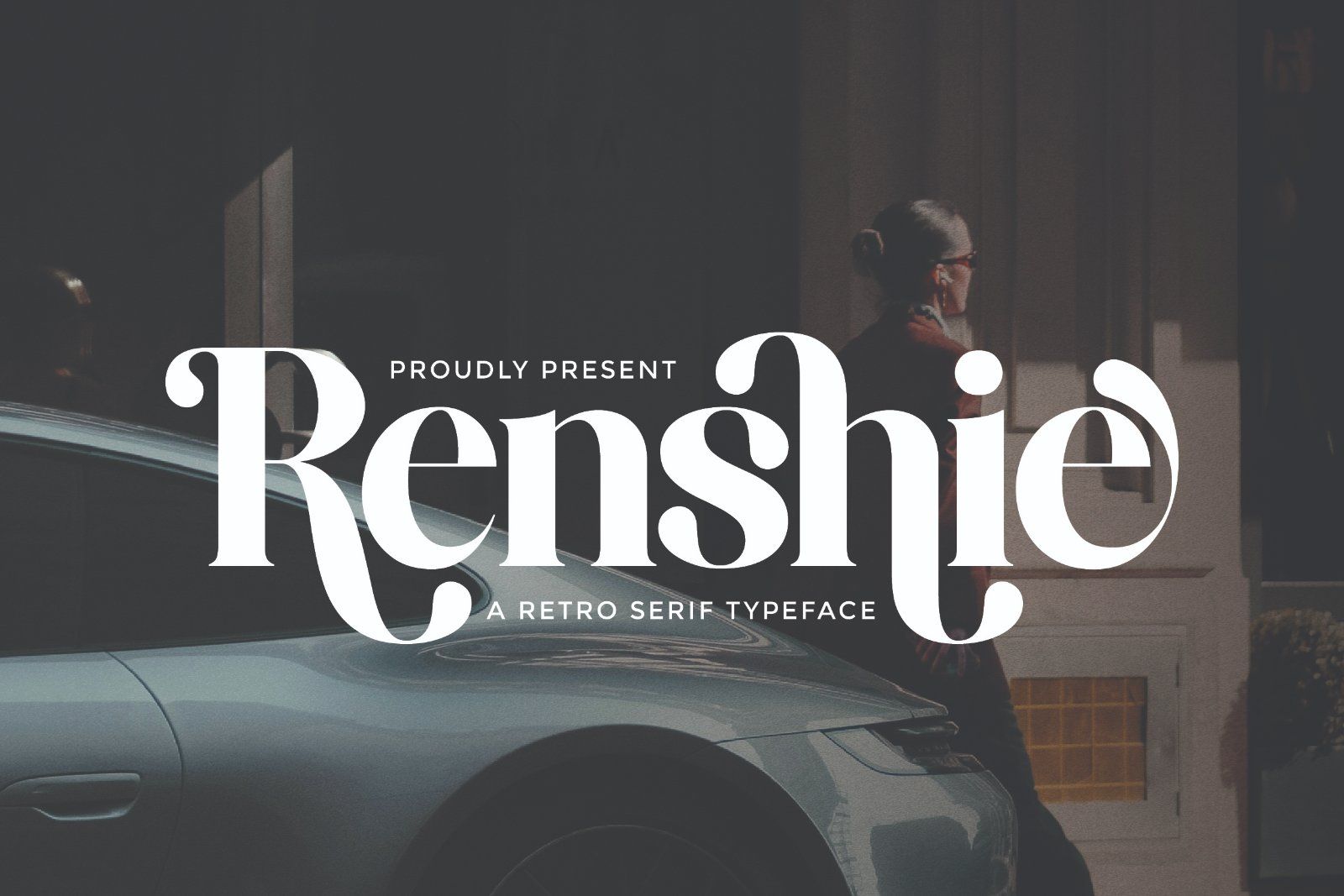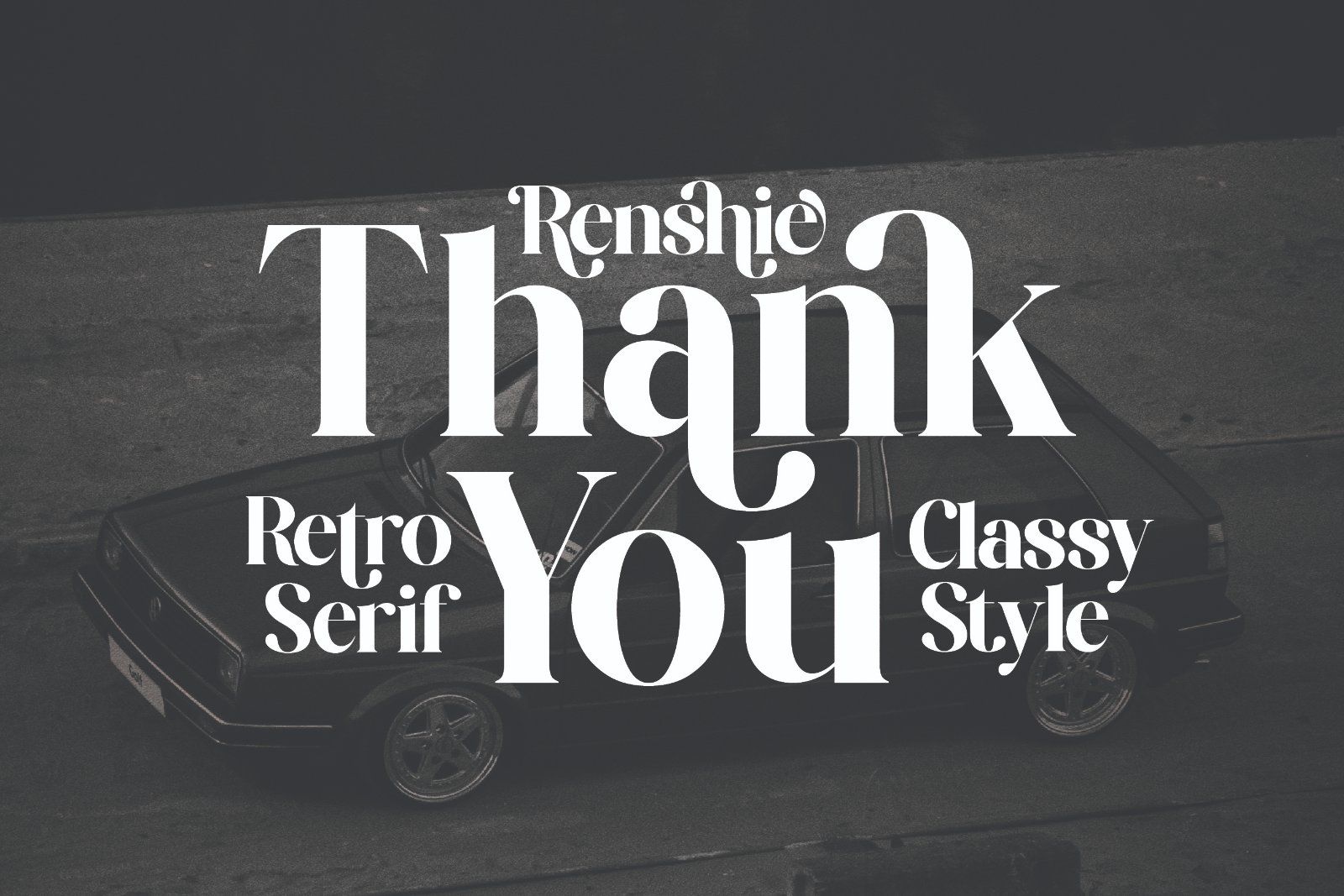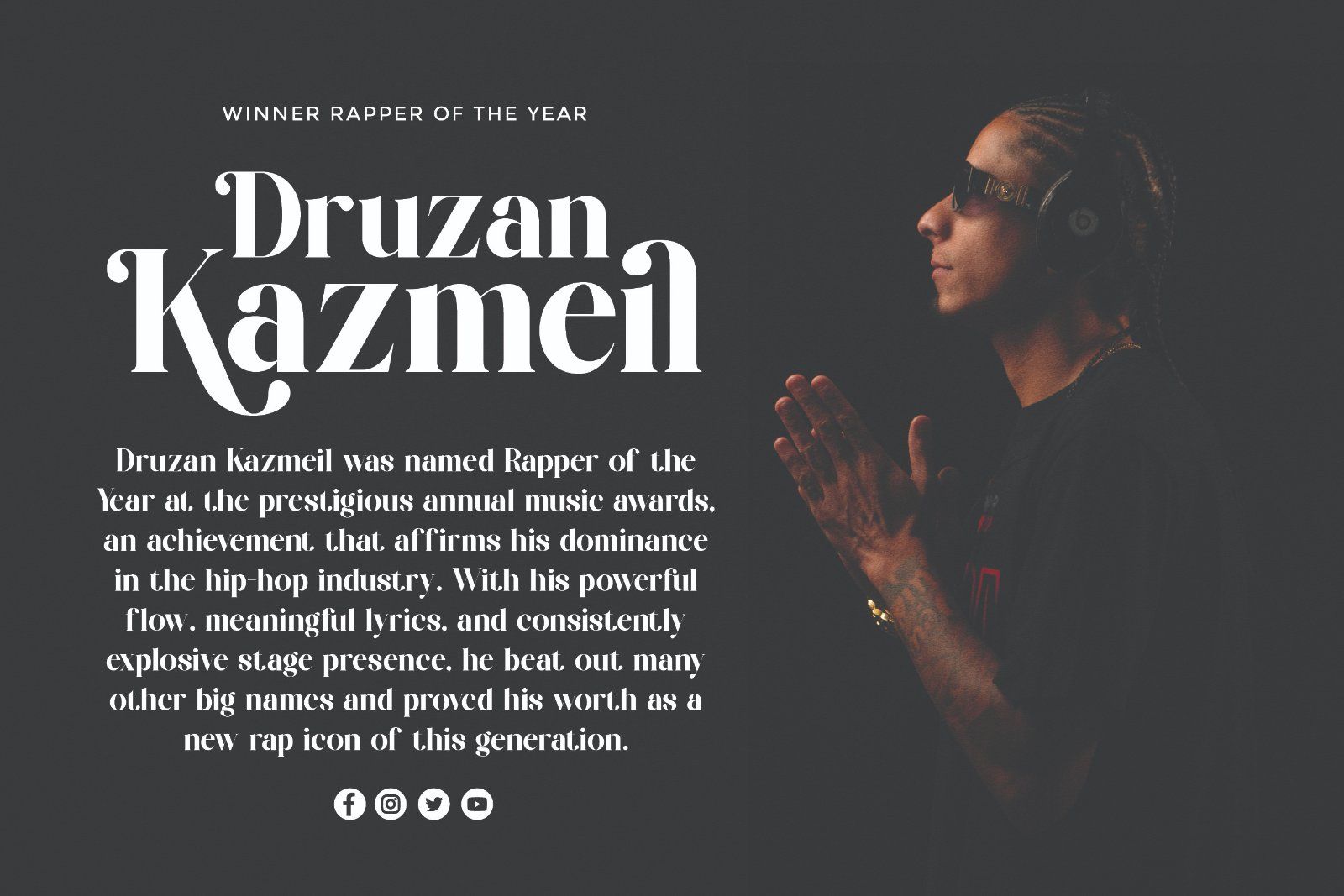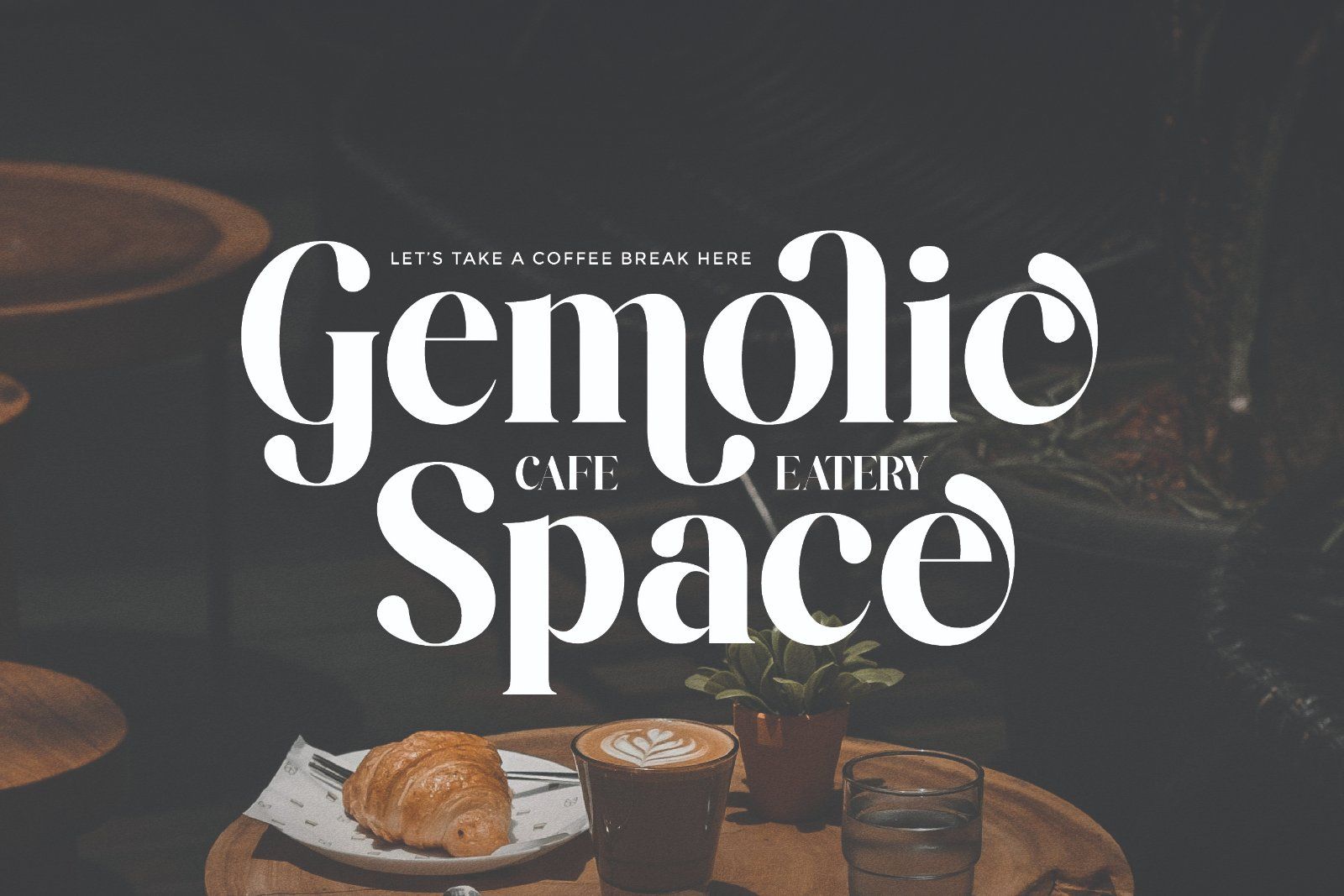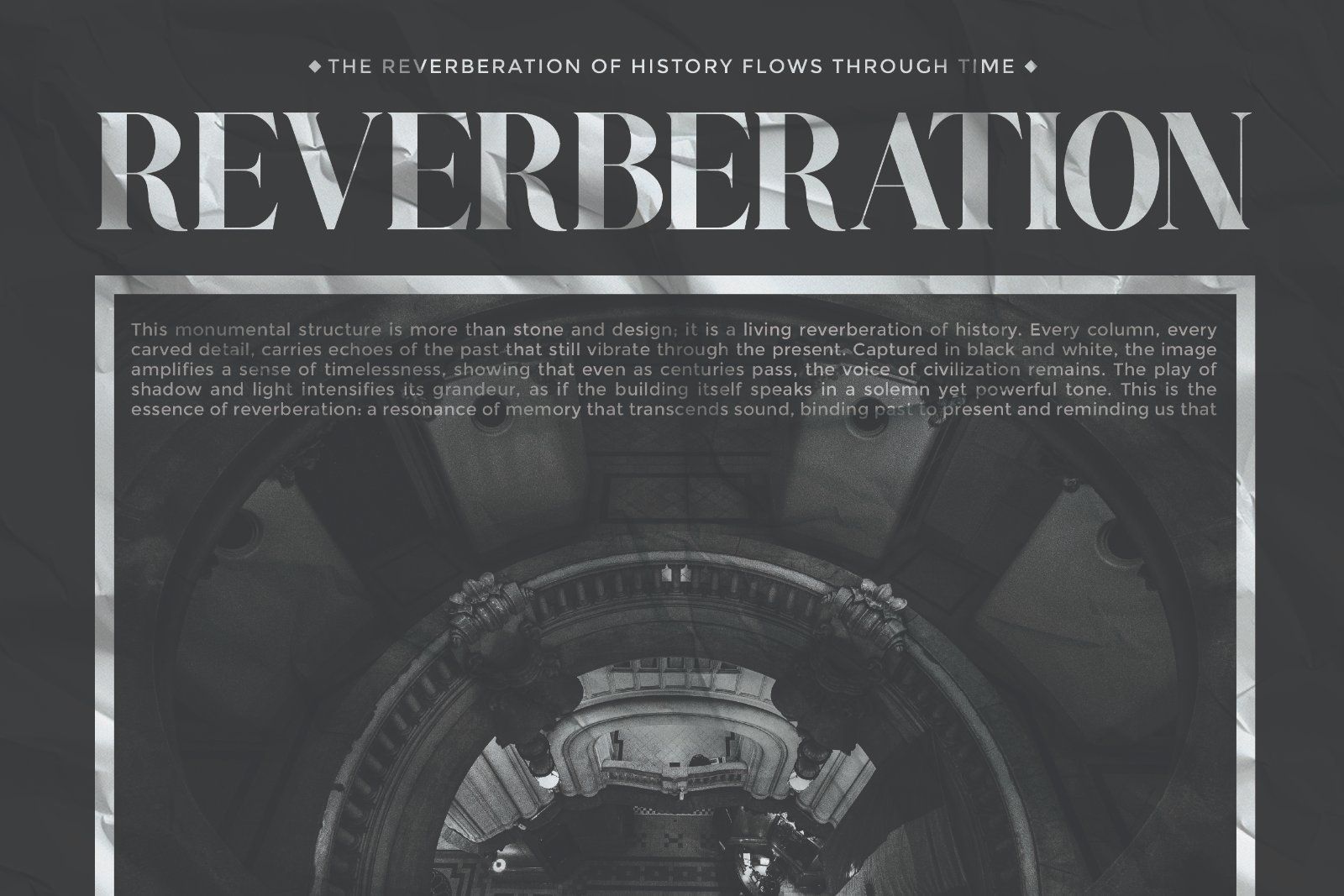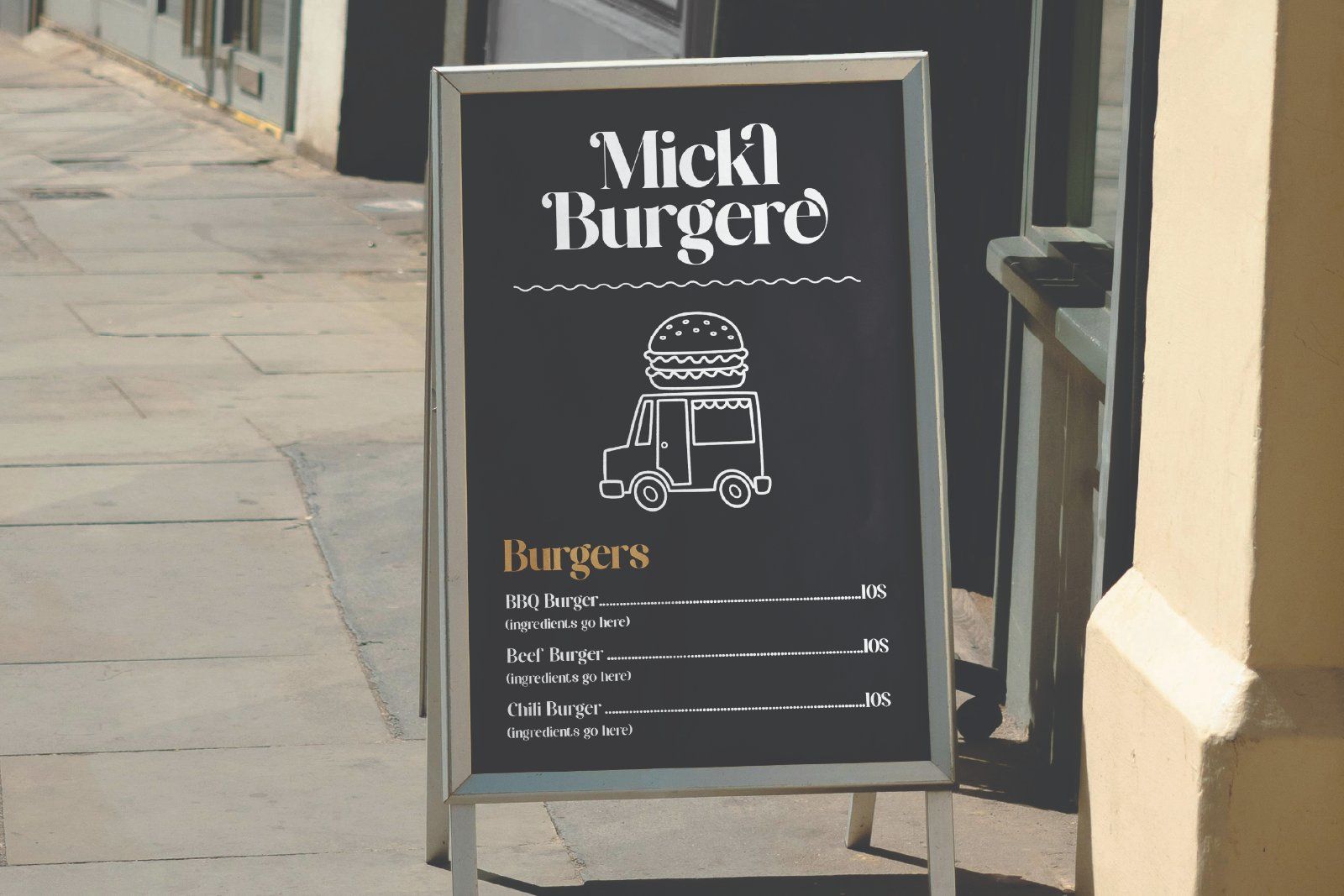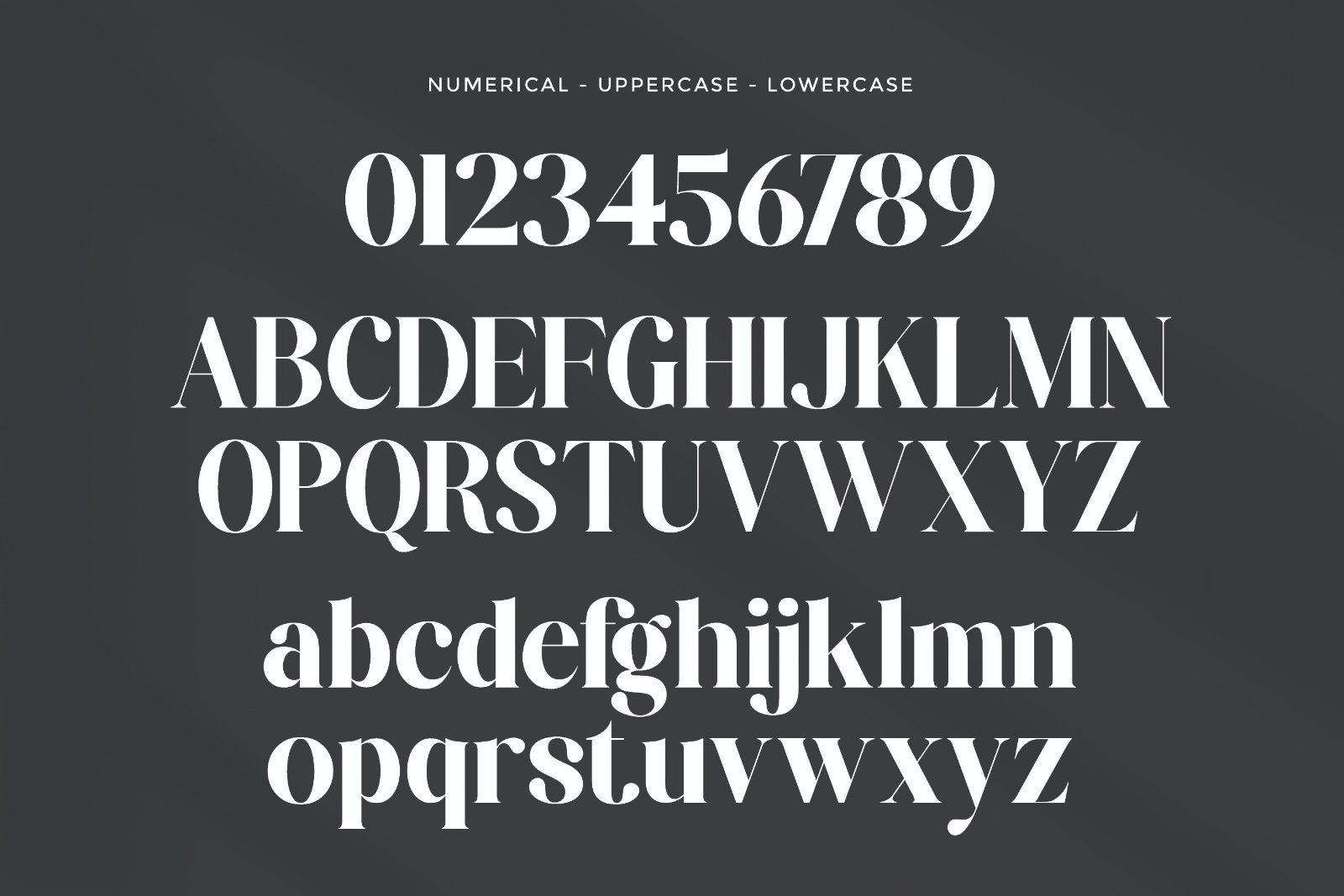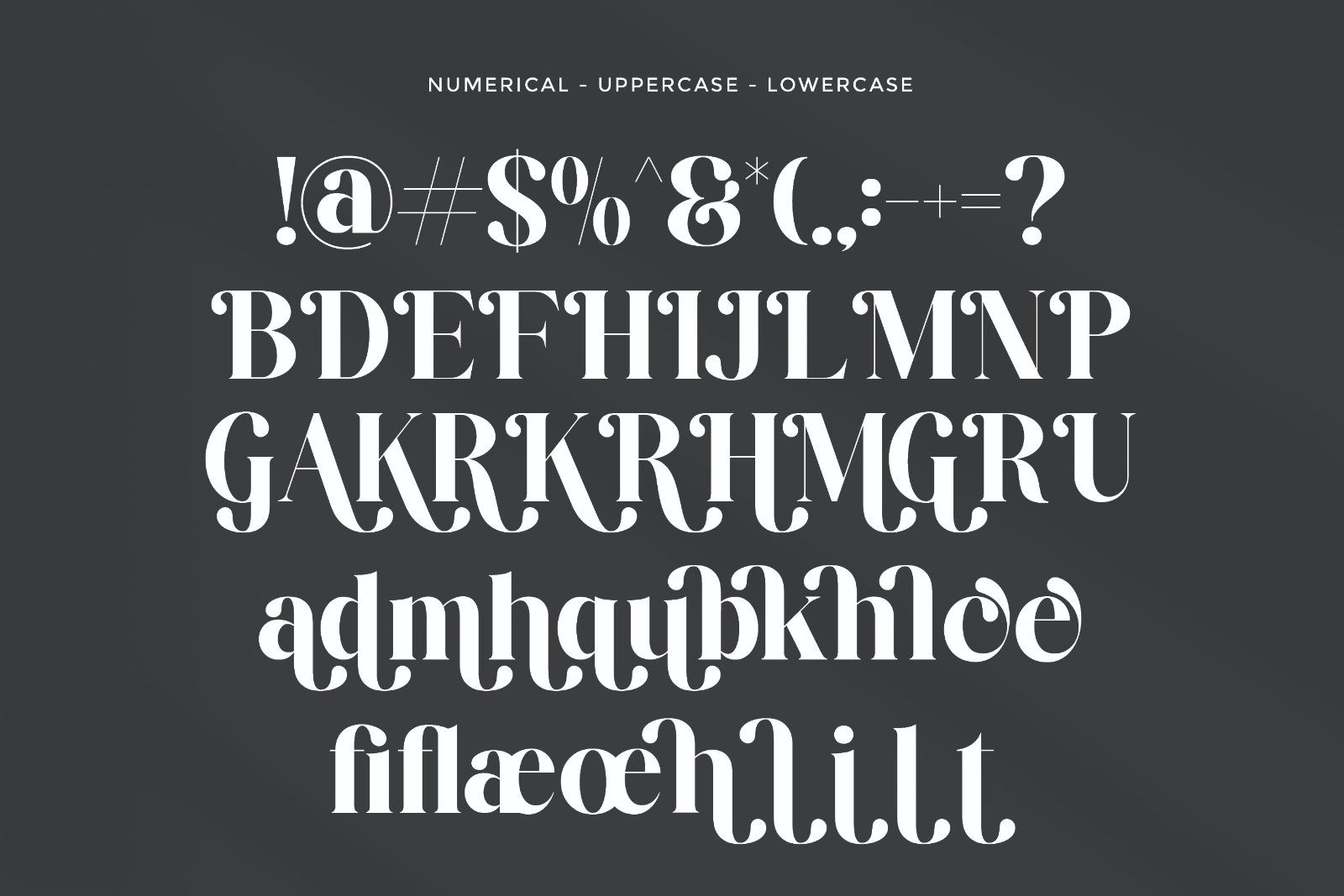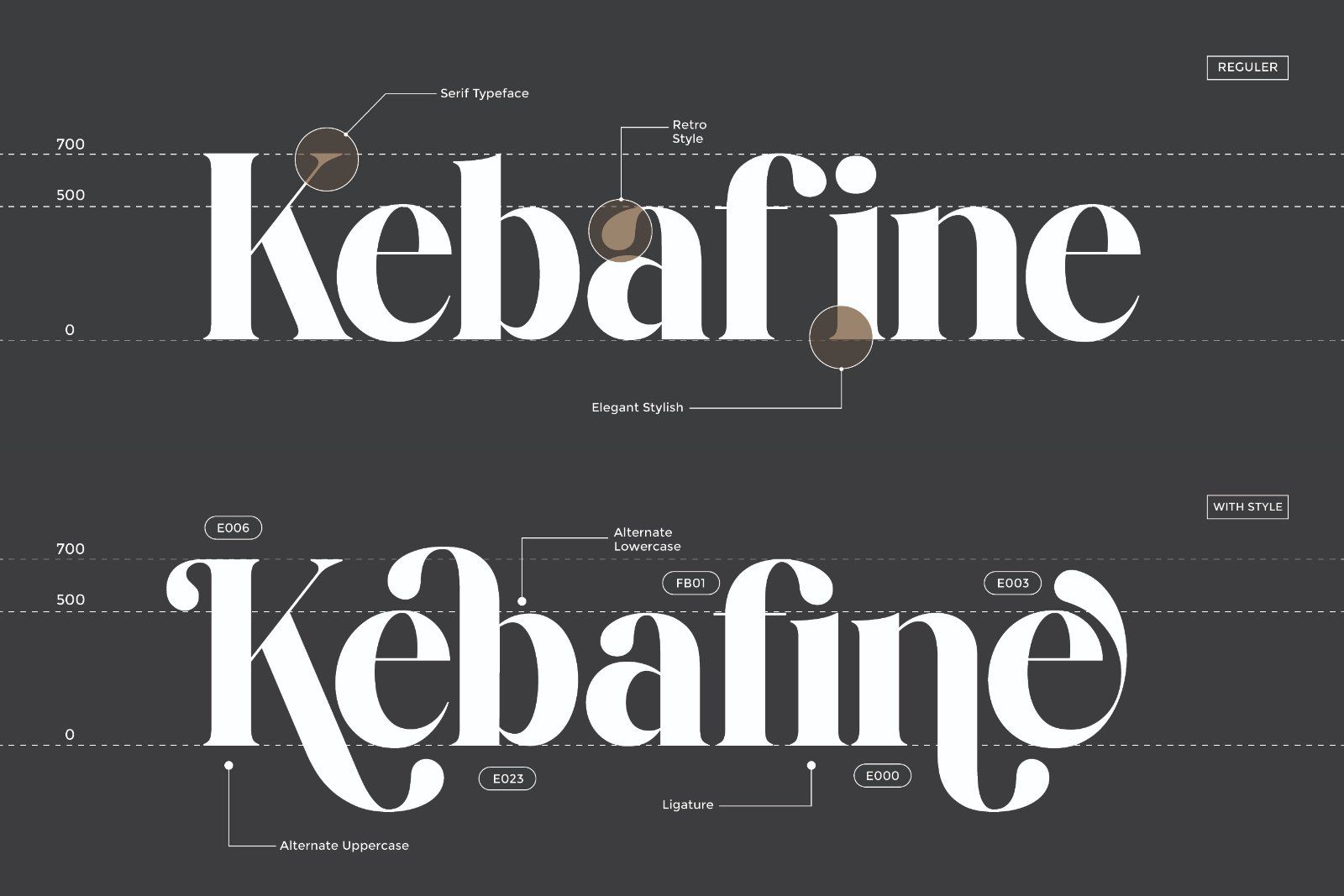
Renshie is a stylish retro serif typeface designed to bring a touch of nostalgic charm and timeless sophistication to your creative projects. With its elegant curves, high-contrast strokes, and playful yet refined letterforms, Renshie captures the spirit of vintage design while remaining versatile for modern use.
• Uppercase alphabet A-Z
• Lowercase alphabet a-z
• Numbers 0-9
• Some punctuation
• Some Alternates and Ligatures